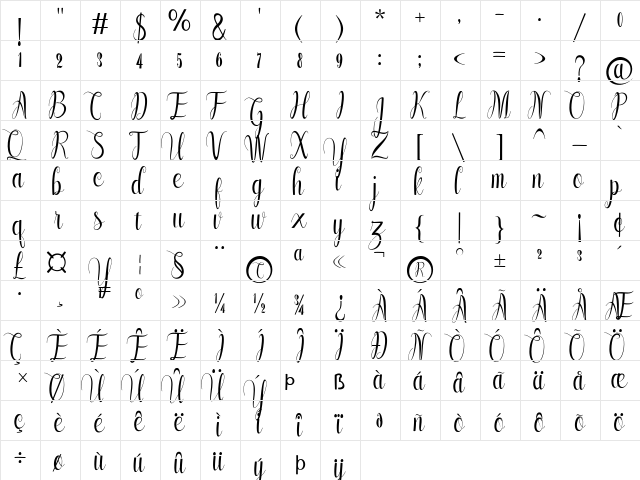
Annabeth Regular
Design Context for Annabeth Typeface
Annabeth is a composed and adaptable typeface that performs quietly and consistently across a wide range of design contexts.